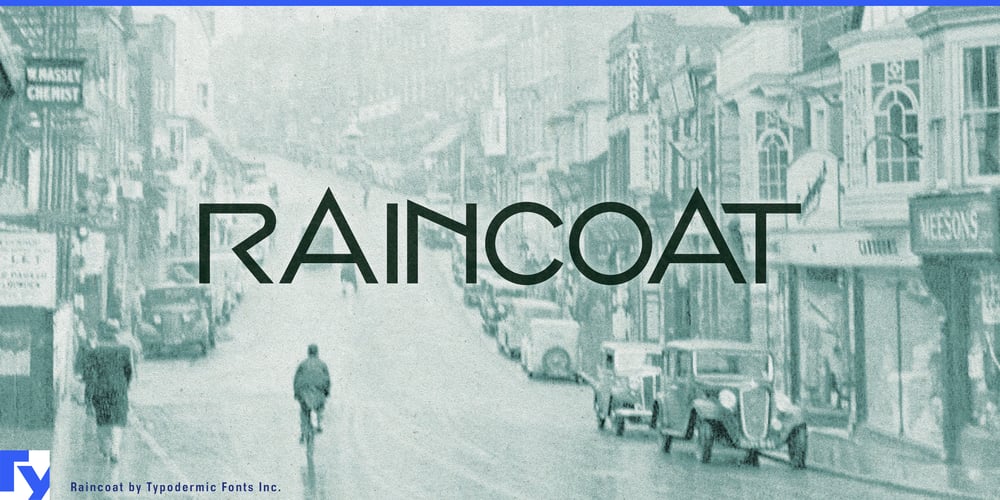
Raincoat
Raincoat font
Raincoat Font Family was designed by Ray Larabie and published by Typodermic. Raincoat contains 1 styles and family package options. Step into the world of Raincoat, a typeface that captures the essence of 1920s sophistication with a contemporary twist. This debonair display font exudes the charm of a well-tailored suit and the confidence of a seasoned raconteur, making it the perfect choice for designs that demand attention and admiration.Raincoat’s geometric sans serif structure is artfully infused with an antique patina, creating a harmonious blend of classic and modern. It’s a time machine that transports your designs to an era of jazz, speakeasies, and unparalleled style. The altered ends of the “T” and the interlocking rings of the “O” aren’t just details—they’re conversations waiting to happen.But Raincoat isn’t content to rest on its laurels. This typeface is a masterclass in versatility, thanks to its ingenious OpenType features. Watch as letter combinations transform into bespoke ligatures, elevating your work from merely polished to utterly unforgettable. Whether you’re crafting a logo that needs to stand the test of time, a poster that stops people in their tracks, or a website that exudes class, Raincoat rises to the occasion with panache. Embrace the language of elegance across borders. Raincoat speaks fluently in most Latin-based European tongues, converses eloquently in Greek, and articulates with finesse in numerous Cyrillic-based writing systems. From Albanian to Zulu, your message will be delivered with unmistakable flair.Ready to add a touch of timeless sophistication to your design repertoire? Slip into Raincoat and watch as your creations become the talk of the town. It’s a statement of intent, a declaration of style. Don’t just design; mesmerize.